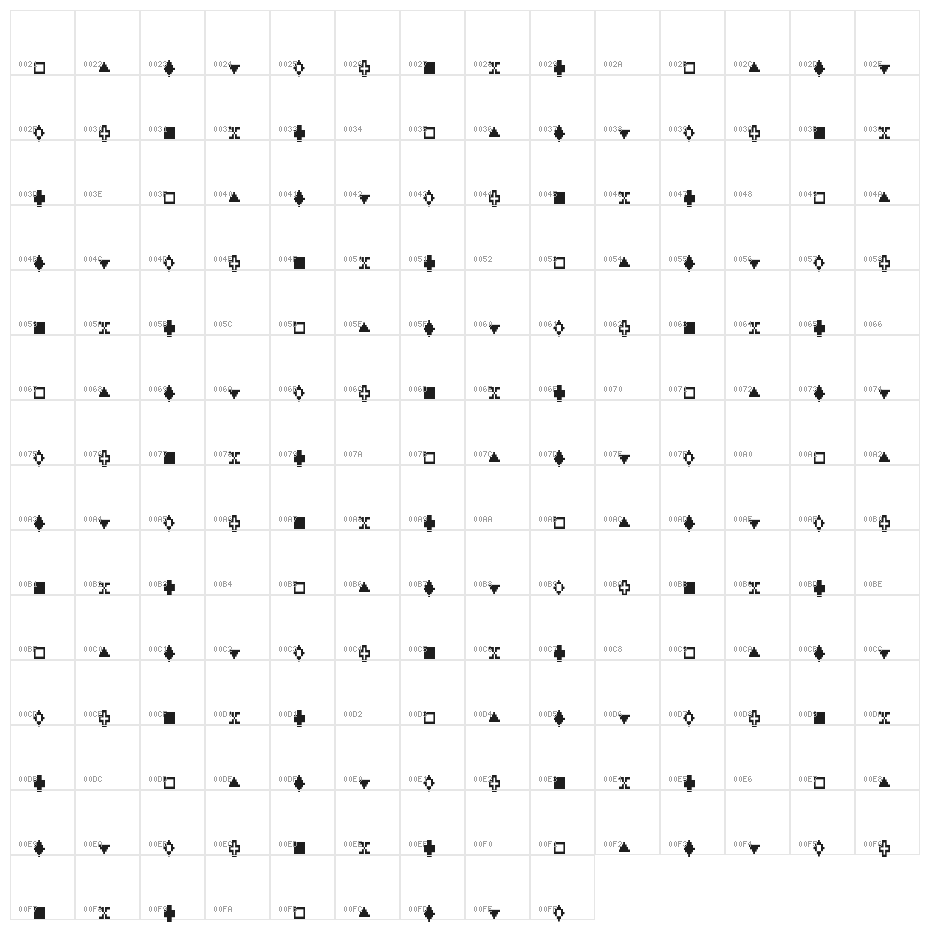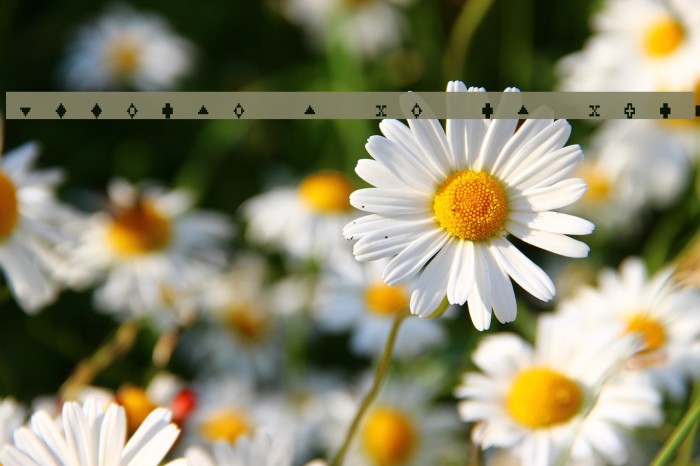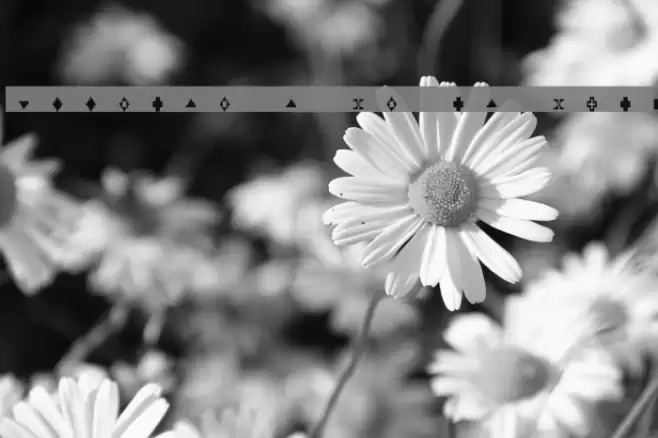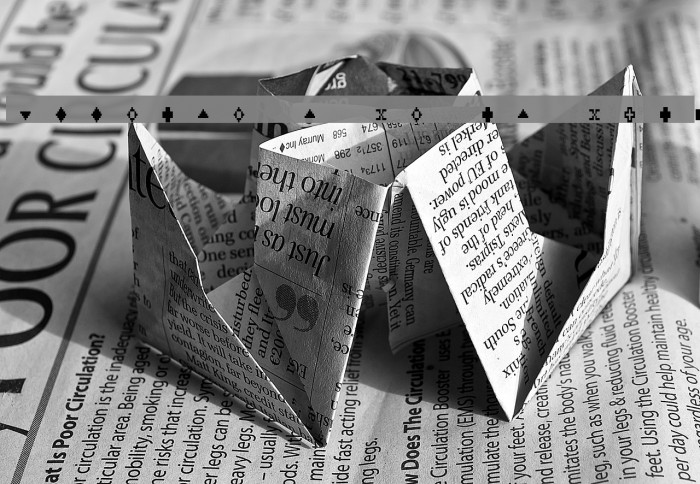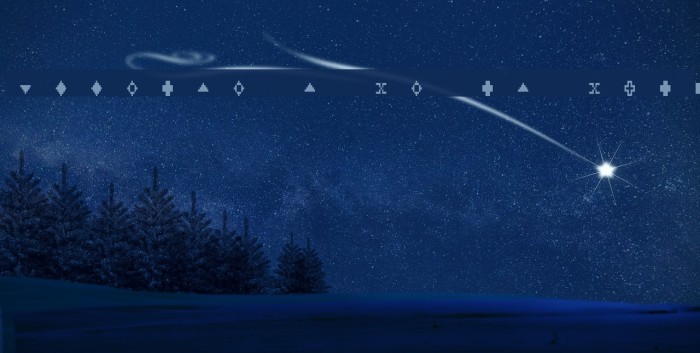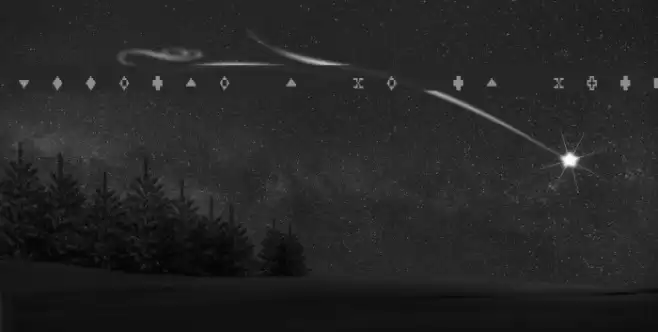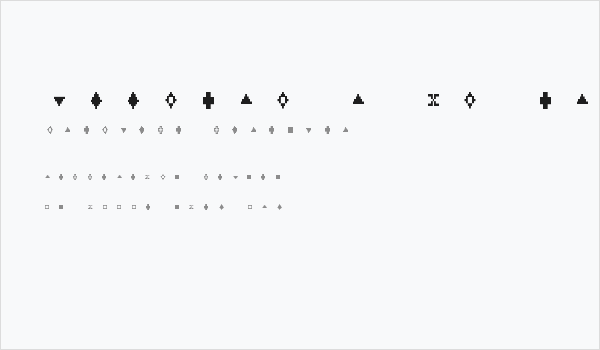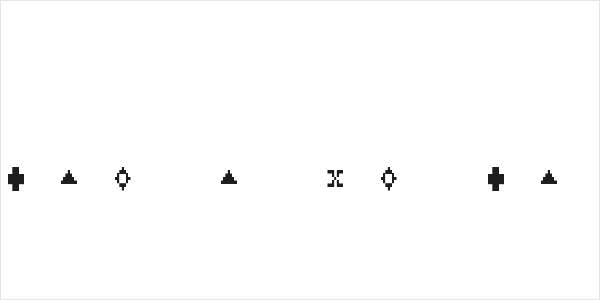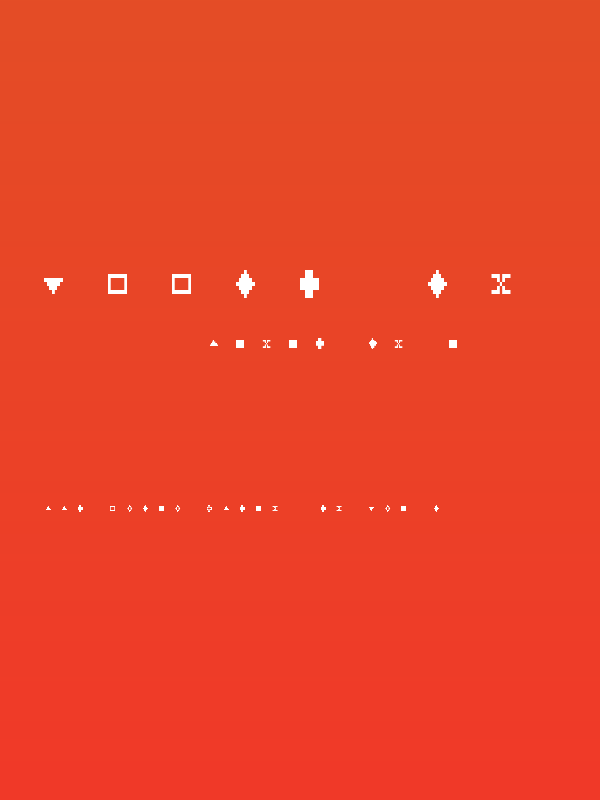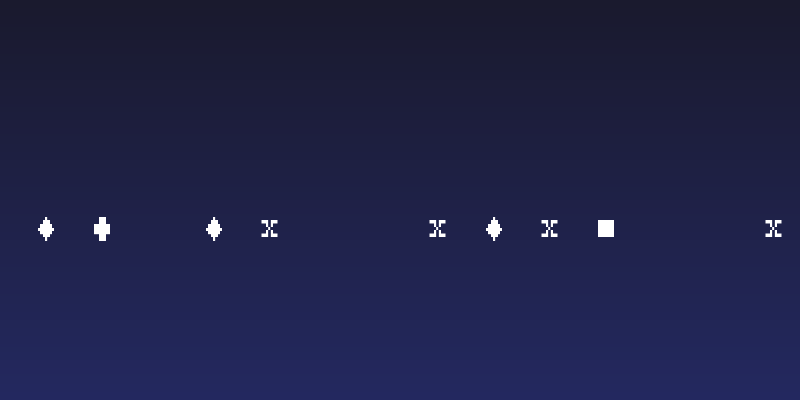
LisaGraph Paper 2X3Y Font
LisaGraph Paper 2X3Y Description
| Overall Style | Decorative, Retro, Minimalist |
| Use Case | Icons, UI elements, infographics, digital art, educational tools. |
| Proposed Projects | Retro games, data visualization, pixel art projects, educational materials, icon sets. |